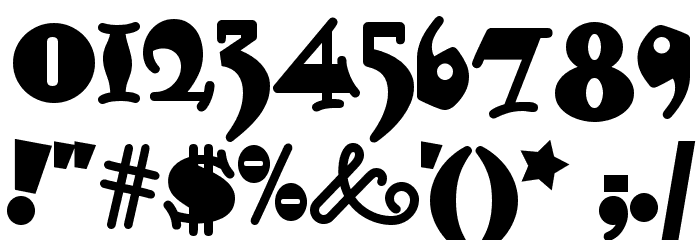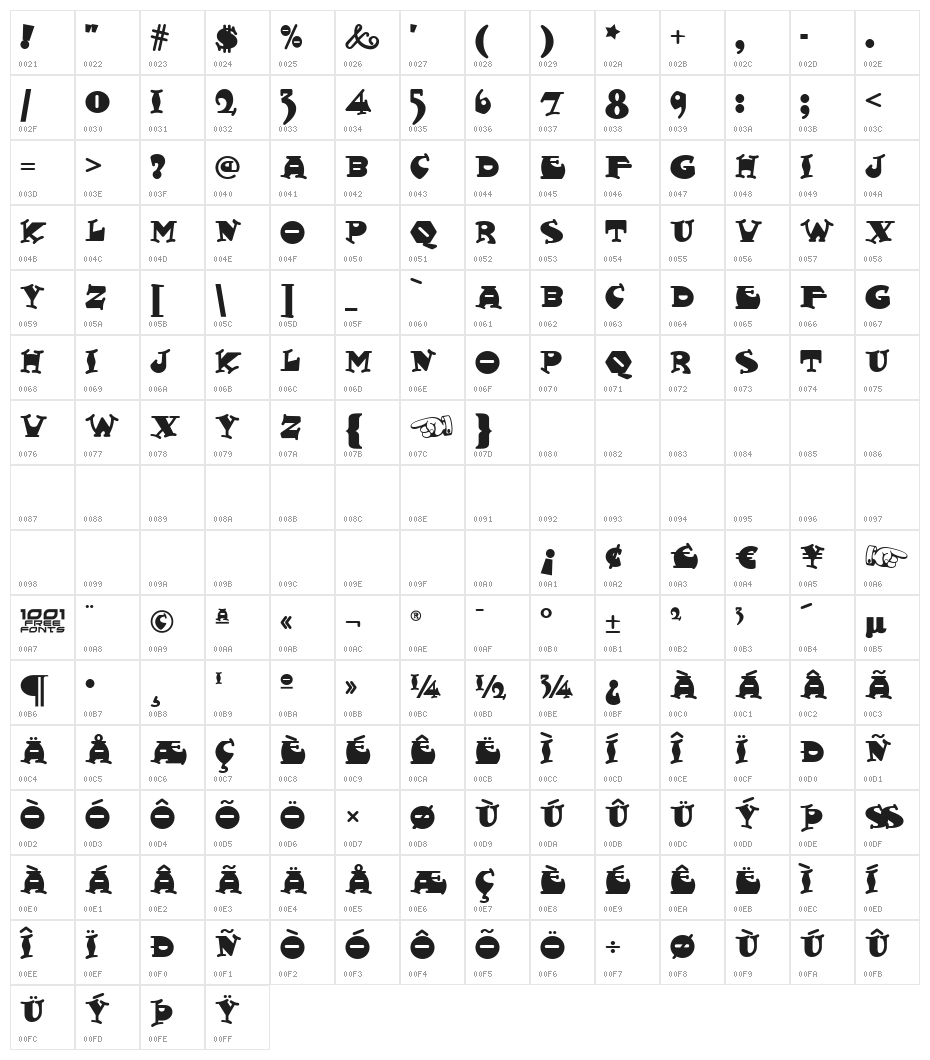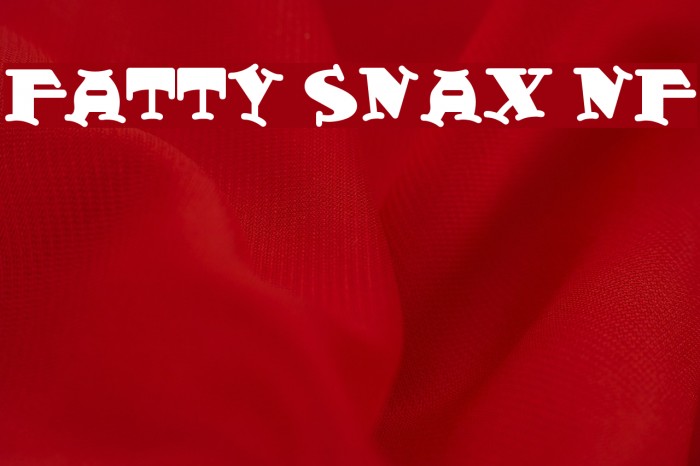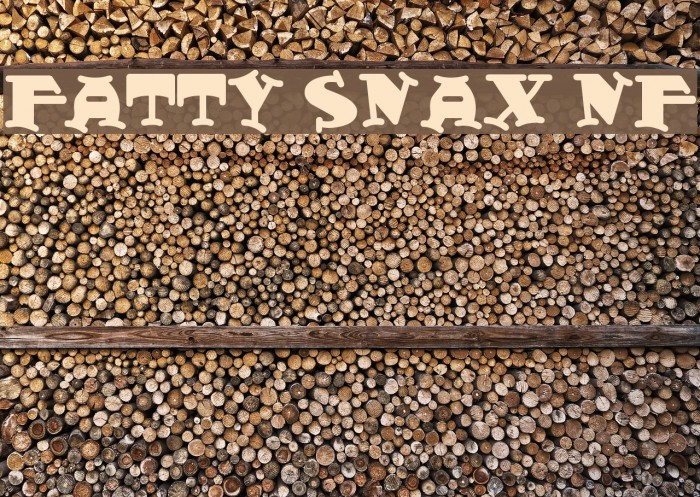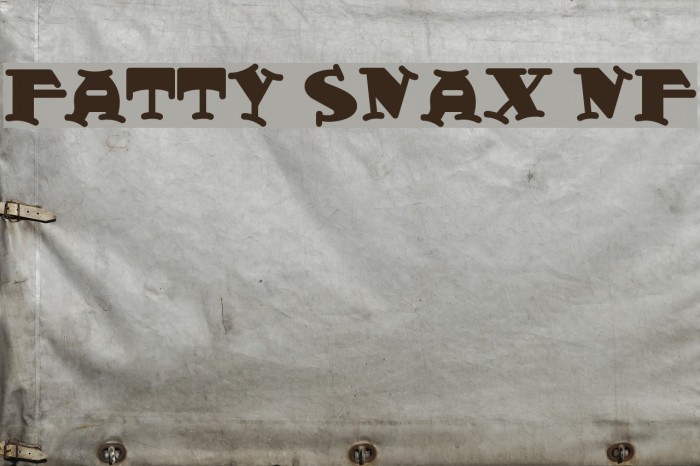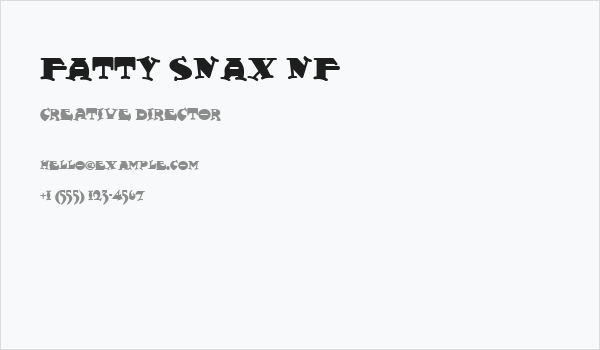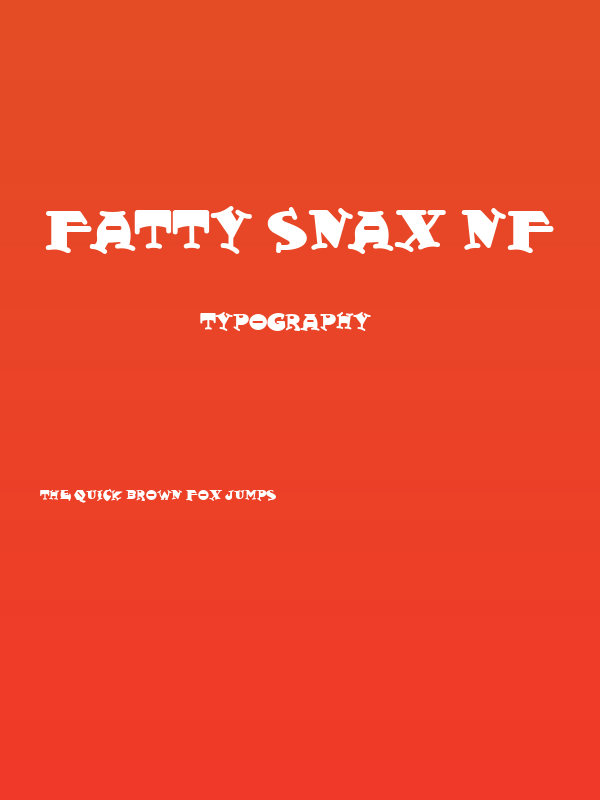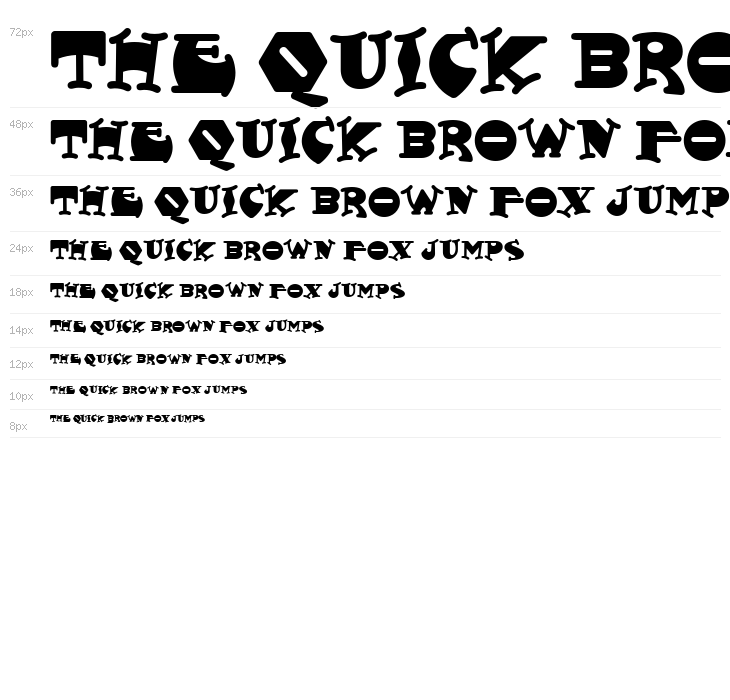
Fatty Snax NF Font
Fatty Snax NF Description
This font features a bold and playful design with exaggerated serifs and unique character shapes. The letters are thick and have a whimsical, cartoon-like appearance, making them stand out with a strong visual impact. The uppercase and lowercase letters maintain a consistent style, with some characters having unexpected curves and angles that add to the font's quirky personality. The numbers and special characters follow the same bold and creative design, ensuring a cohesive look across all elements. This font is perfect for projects that require a fun and eye-catching typeface.
| Overall Style | Playful, Whimsical, Bold |
| Proposed Projects | Ideal for children's books, playful branding, posters, and any project needing a fun, eye-catching typeface. |